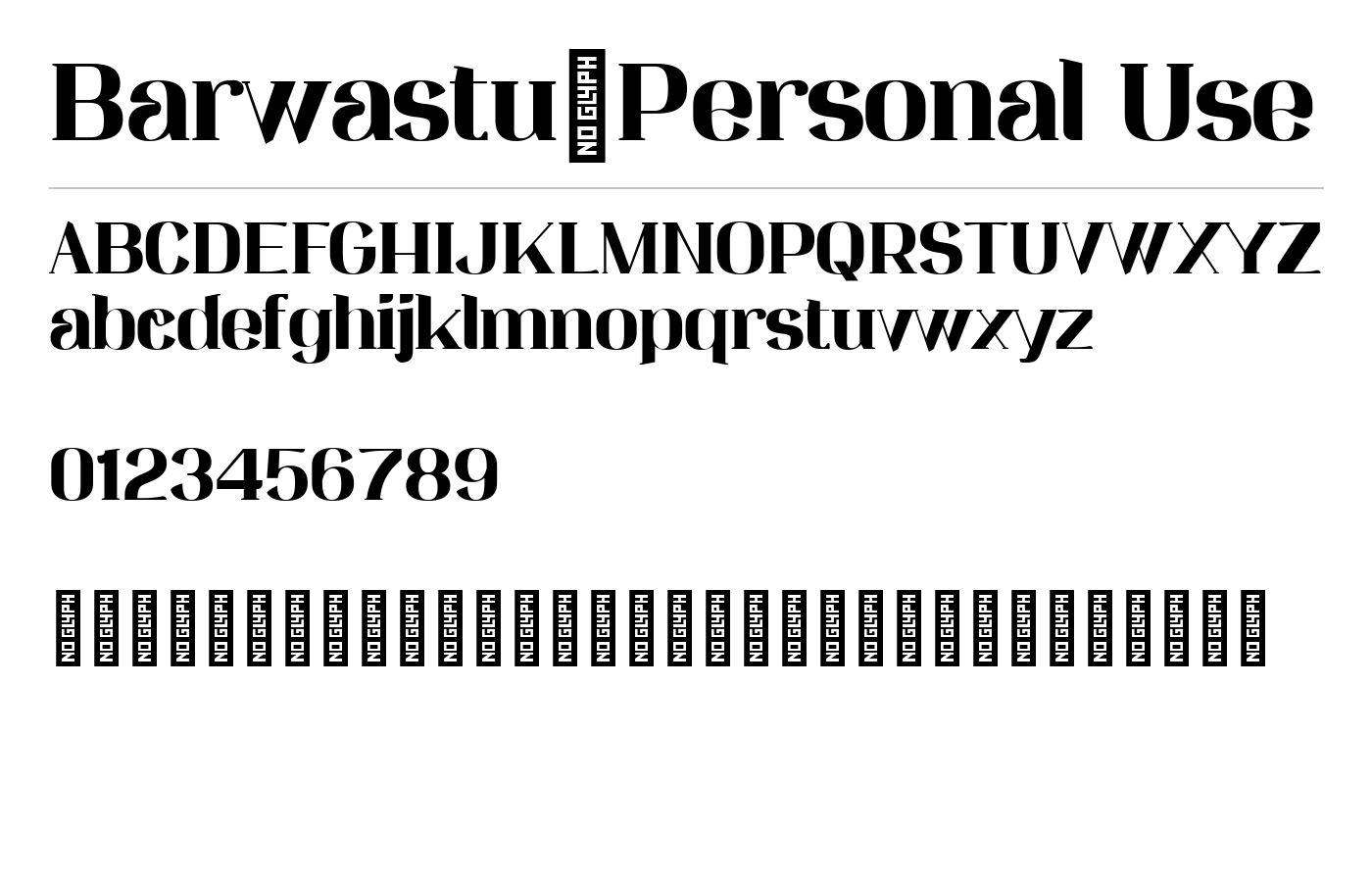
Barwastu is a striking serif font characterized by its high contrast between thick and thin strokes and sharp, elegant serifs, giving it a sophisticated and modern look with a vintage flair. Its condensed proportions and distinctive letterforms, like the curved tail on the “Q” and the single-story “a,” make it perfect for fashion, luxury branding, editorial headlines, and logos where a bold yet refined impression is desired. This font’s unique blend of classic elegance and contemporary style works best in display settings that need to capture attention with a touch of personality.
Barwastu_Personal Use Font
About Barwastu_Personal Use Font
| Font family | Barwastu_Personal Use Font |